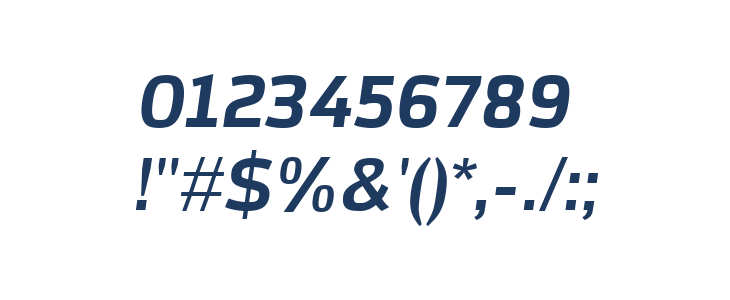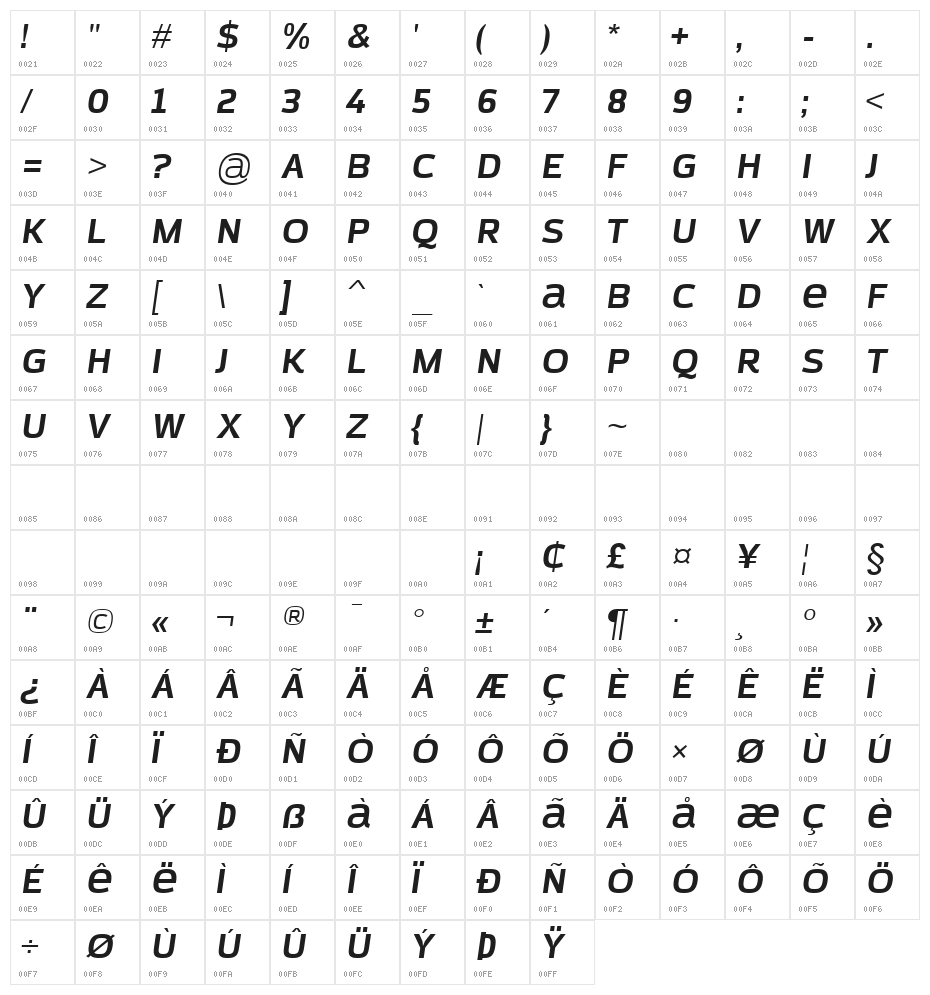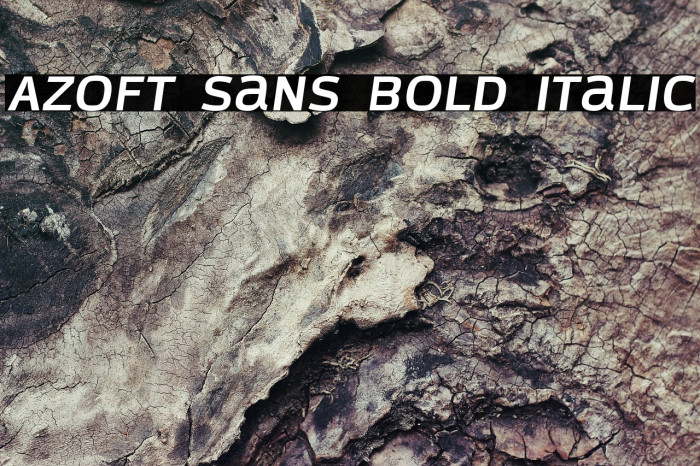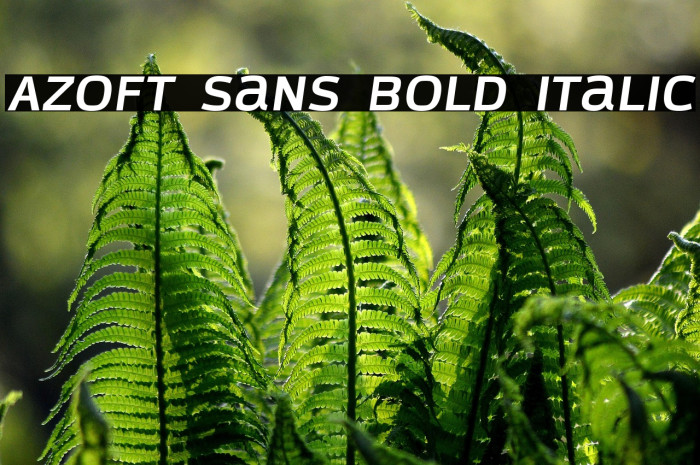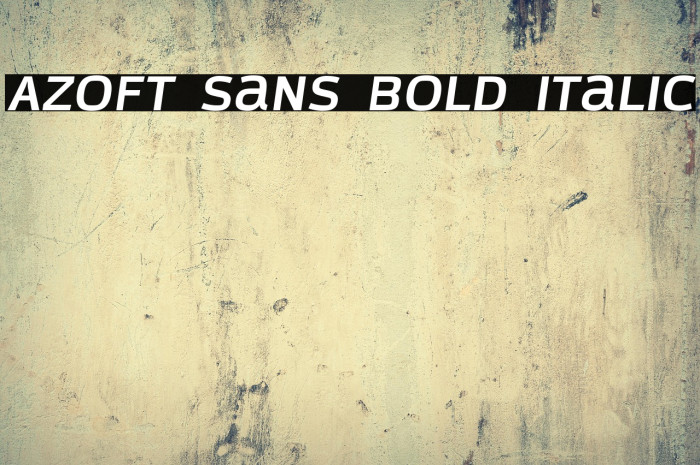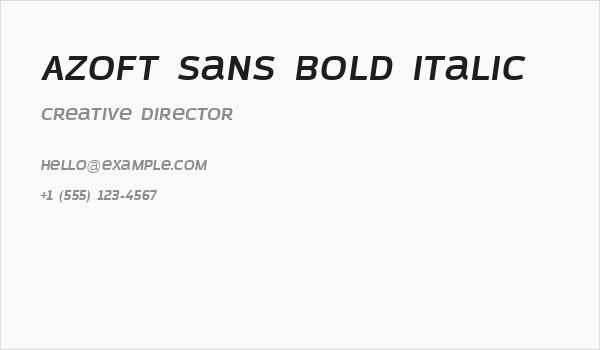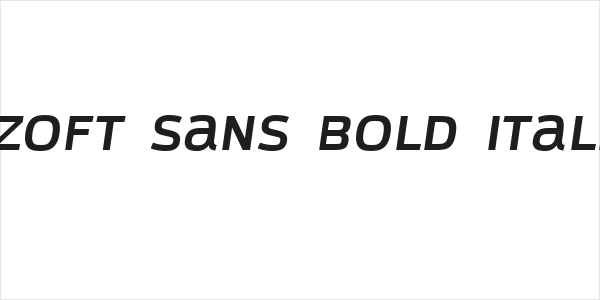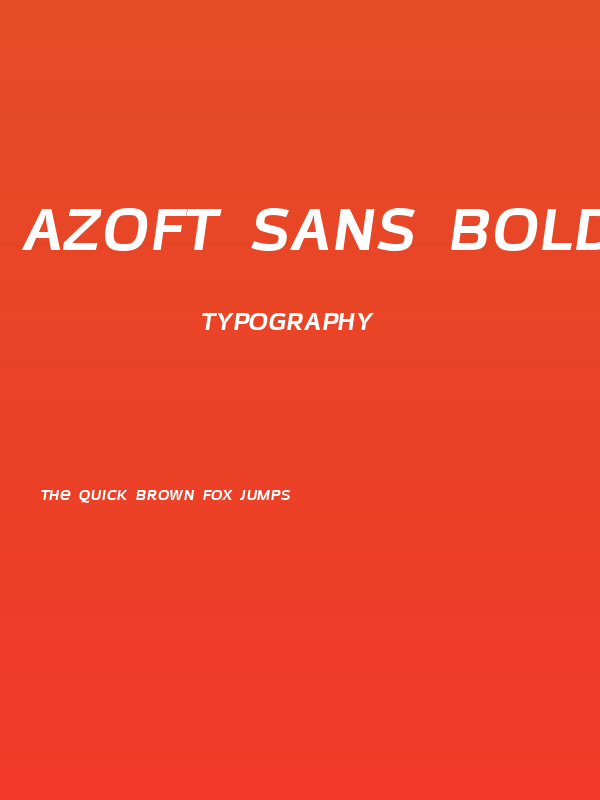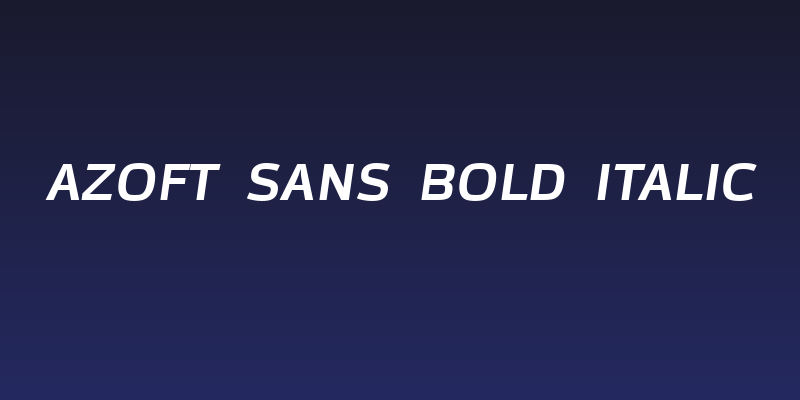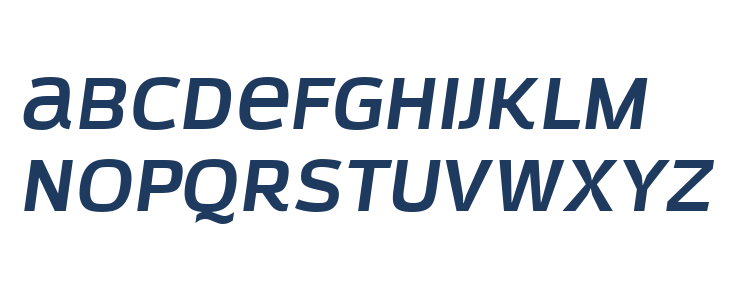
Azoft Sans Bold Italic Font
Azoft Sans Bold Italic Description
This font exhibits a modern sans-serif style with a bold and italicized appearance. The characters are clean and streamlined, featuring a slight slant that adds a dynamic and forward-moving feel. The strokes are consistent in weight, providing a uniform appearance across all characters. The uppercase and lowercase letters maintain a harmonious balance, while the numerals are clear and easily distinguishable. Special characters are well-integrated, ensuring versatility in various applications. The overall design is sleek and professional, making it suitable for contemporary design projects.
| Use Case | Headlines, Logos, Digital Media |
| Proposed Projects | Ideal for branding, advertising, digital media, and editorial design where a modern and bold statement is needed. |